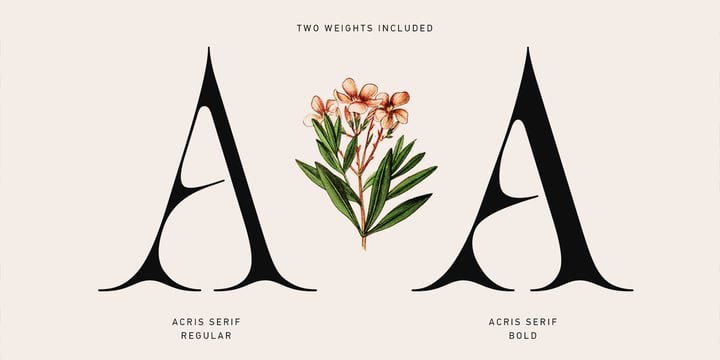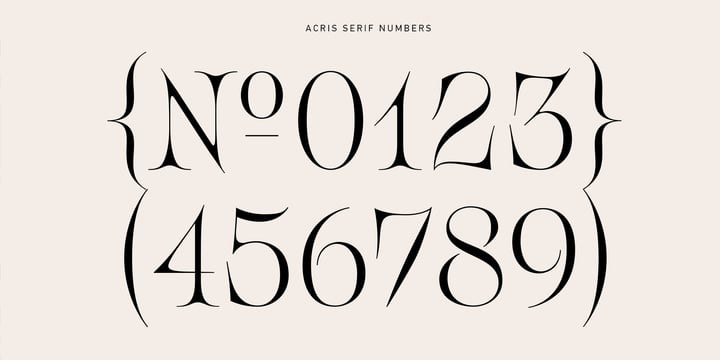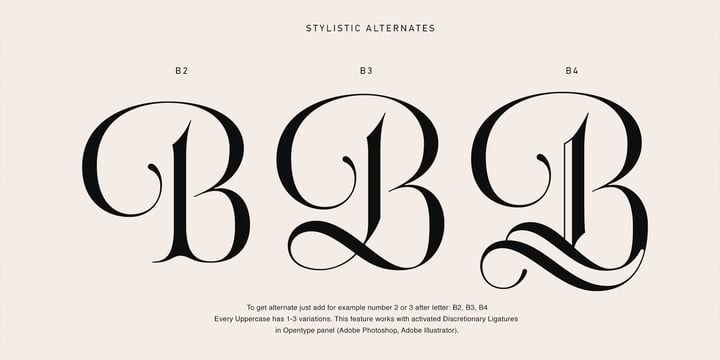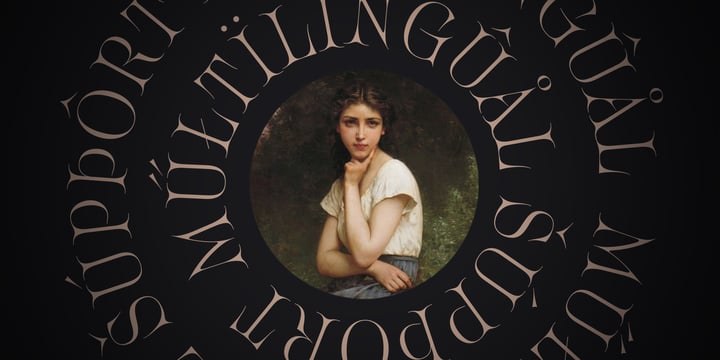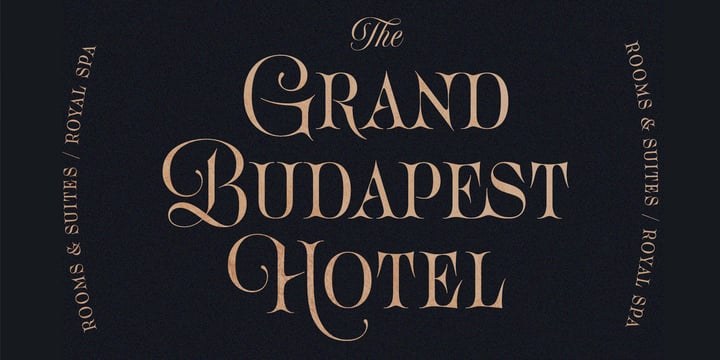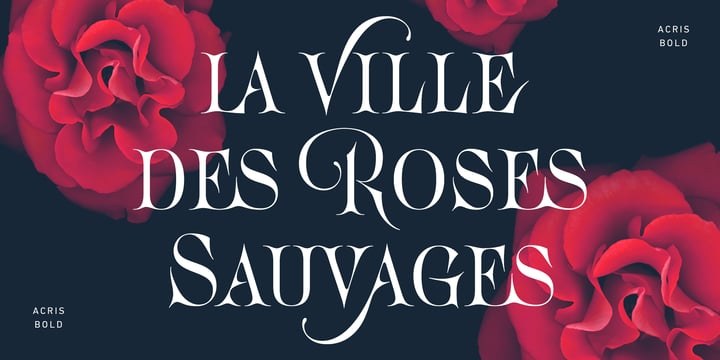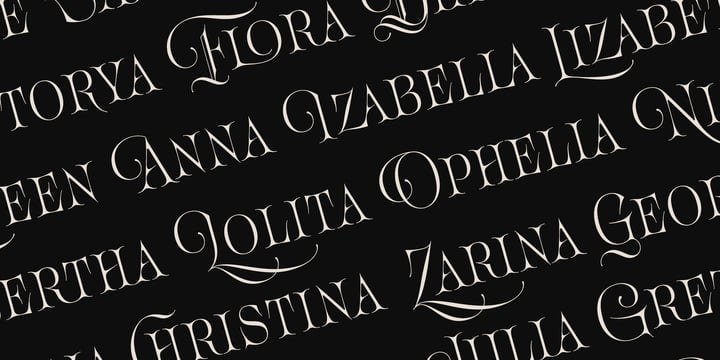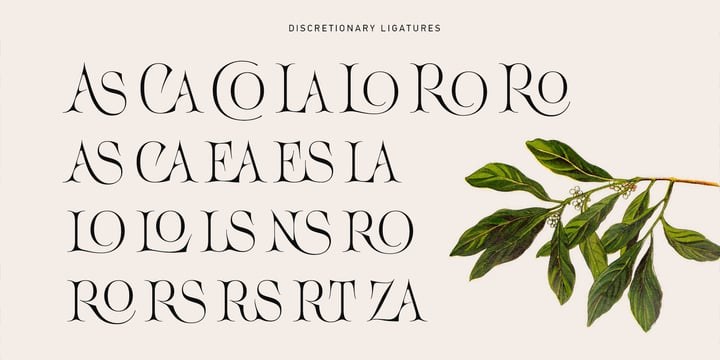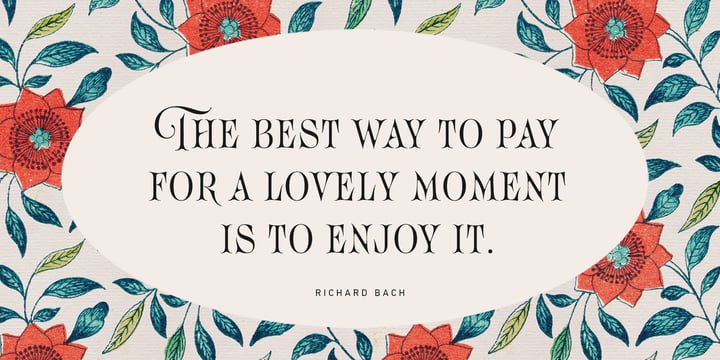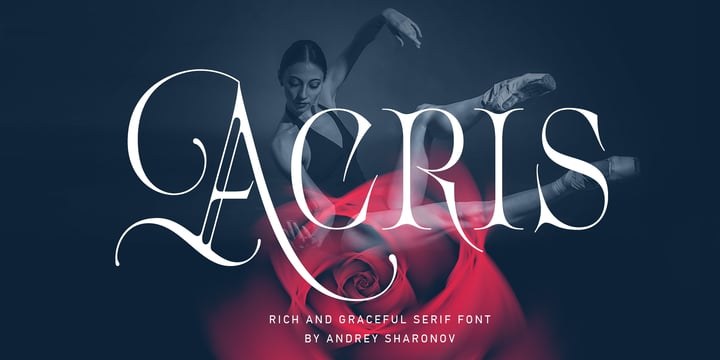
Acris Font Family
Acris Serif is the rich and graceful font designed in two weights for expressive and luxury projects. If it’s had gender, it would be a woman — beautiful but with character like rose with thorns. Acris Serif is very good looking in Big Tittles, Magazine design, Branding, Logotypes, Posters, Wedding invitations, romantic cards and others.
This typeface comes with special features like Stylistic Alternates and Discretionary Ligatures. The easiest way you can get Alternates is to add for example number 2, 3 or 4 after character. For this option be sure that bottom named Standard Ligatures is activated in Opentype panel.
Acris Font Family is a Serif Fonts font that brings a professional and versatile look to your projects. Acris Serif is the rich and graceful font designed in two weights for expressive and luxury projects.